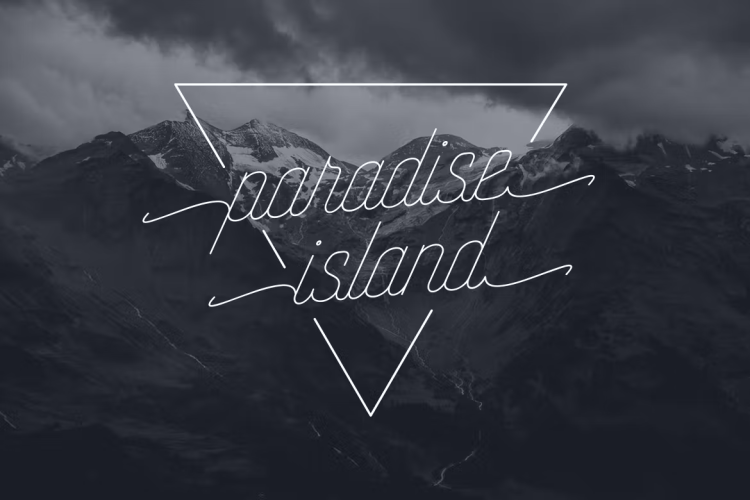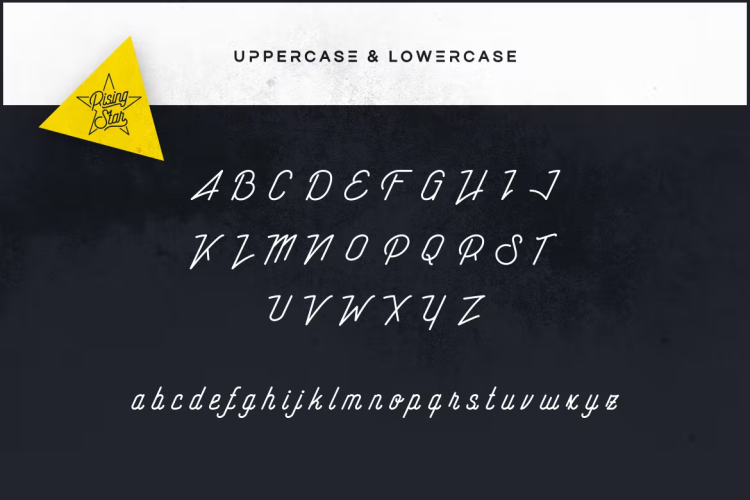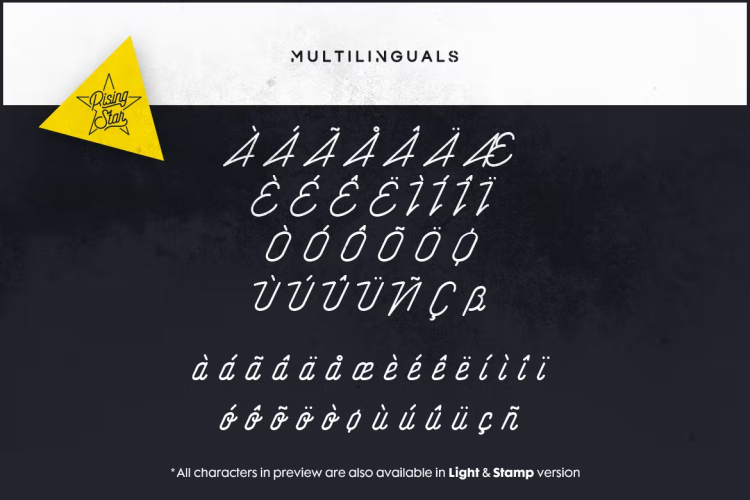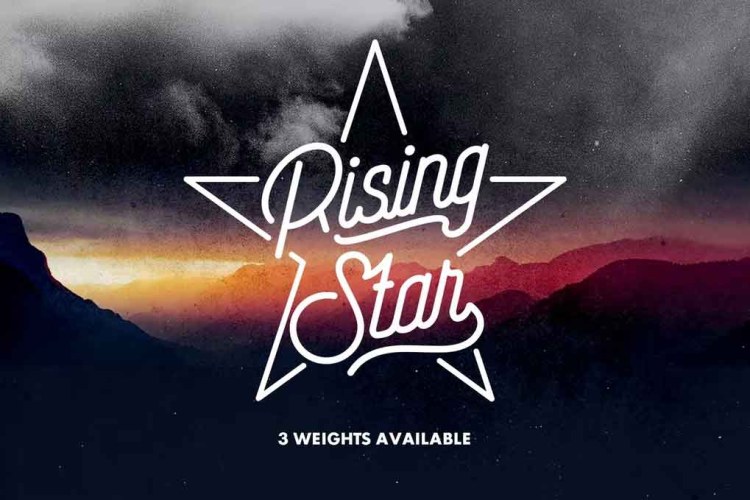
Rising Star Font
RISING STAR | Let it shine
Rising Star is a modern monoline script with an adventurous mood. It is inspired by, well, nostalgic summer camp, in the wood and near the lake, a warm laught with best friends and unlimited stars in the clear night sky. Rising Star turns our nostalgia for summer into a dynamic and vivacious font that comes in three different styles to choose from; Regular, Light, and Stamp.
Rising Star comes in three weights making the font versatile and useful both for web and print; think websites, posters, menus, logotypes, cards, signage, packaging and whatnot. Rising Star is friendly, sturdy and it makes a statement, but most of all, it is fun to play with.
Where Rising Star Font works best
A short phrase in Rising Star Font carries warmth that a typeset sans cannot fake; keep the rest of the card plain.
Chalkboard-style headings in Rising Star Font make a menu feel hand-made. Keep the dish descriptions in a simple face so prices stay readable.
One line of Rising Star Font over a photo is enough; the script carries the tone and the caption does the work.
What kind of work does Rising Star Font suit?
It sits in the Script And Handwritten group and reads as food, friendly, modern, packaging. That makes it a candidate wherever those qualities help: headings, packaging, social graphics and brand work. Set it at the size you plan to use before deciding.